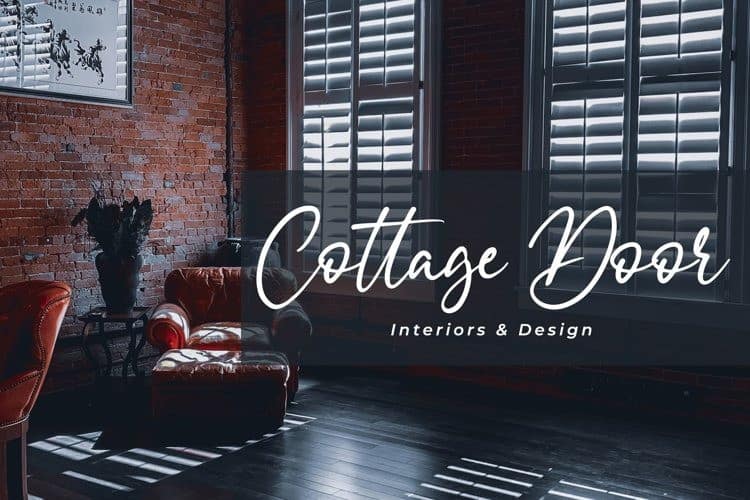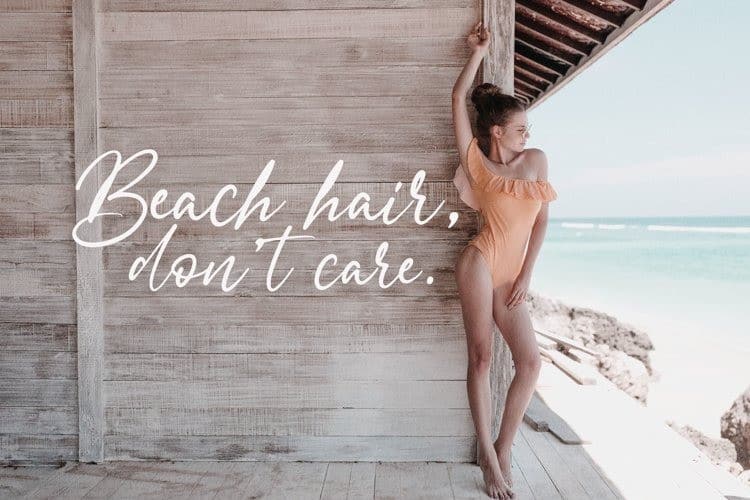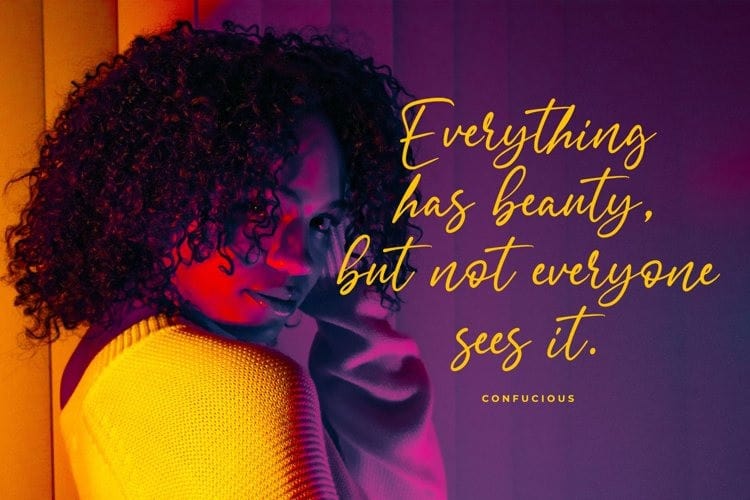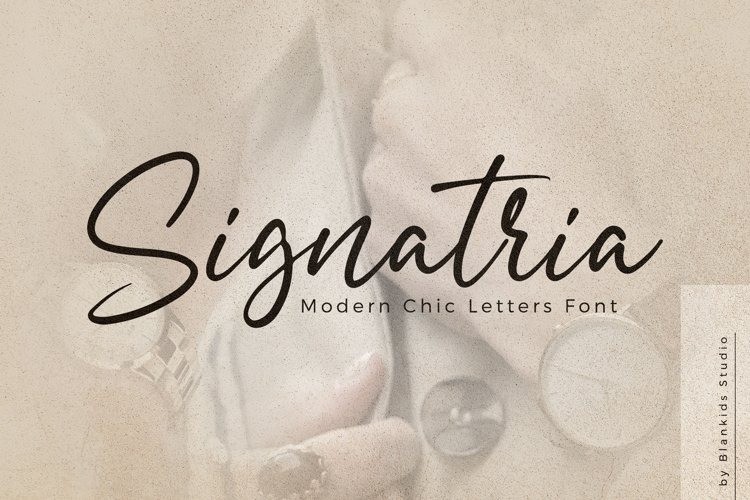
Signatria Script Font
Signatria Script Font is a high-quality script font inspired by modern script style. It has a modern and classy look which can be used to add the best and extraordinary touch to your designs. This font is a fun theme very good for display, tshirt design, craft, quote sign, logotype and etc.